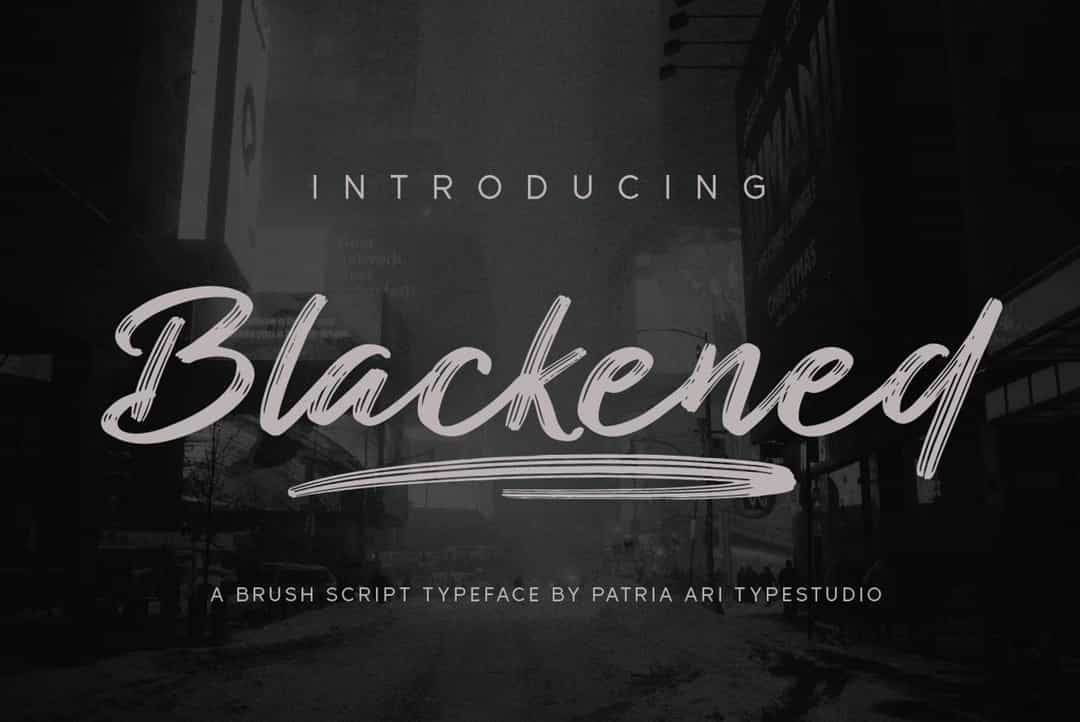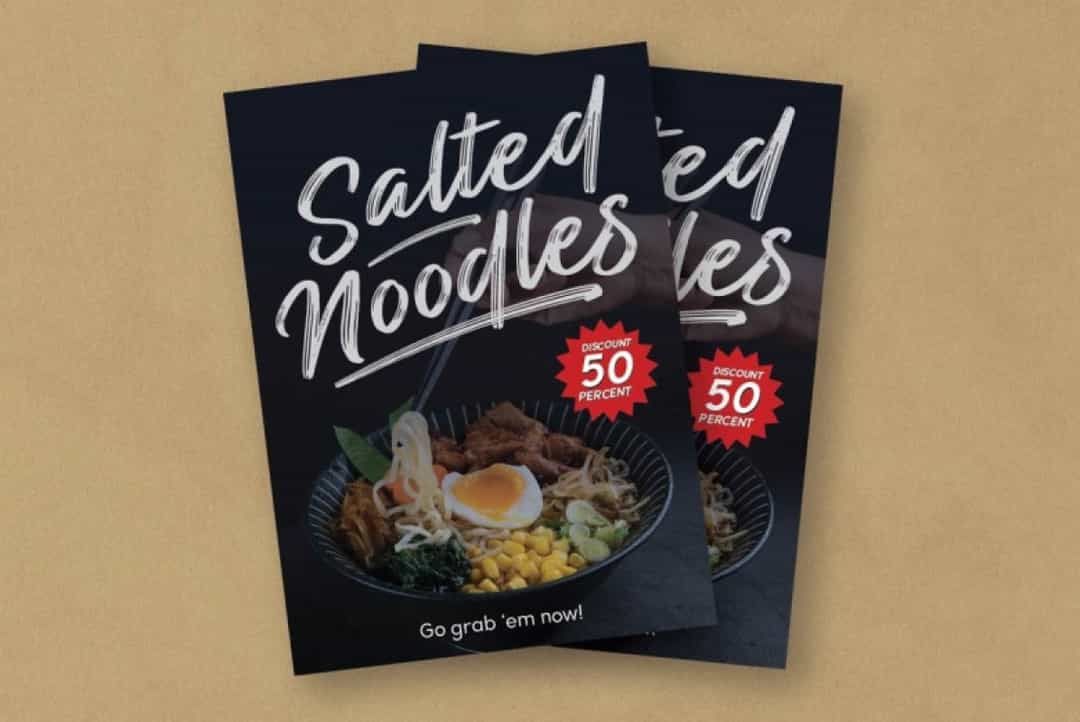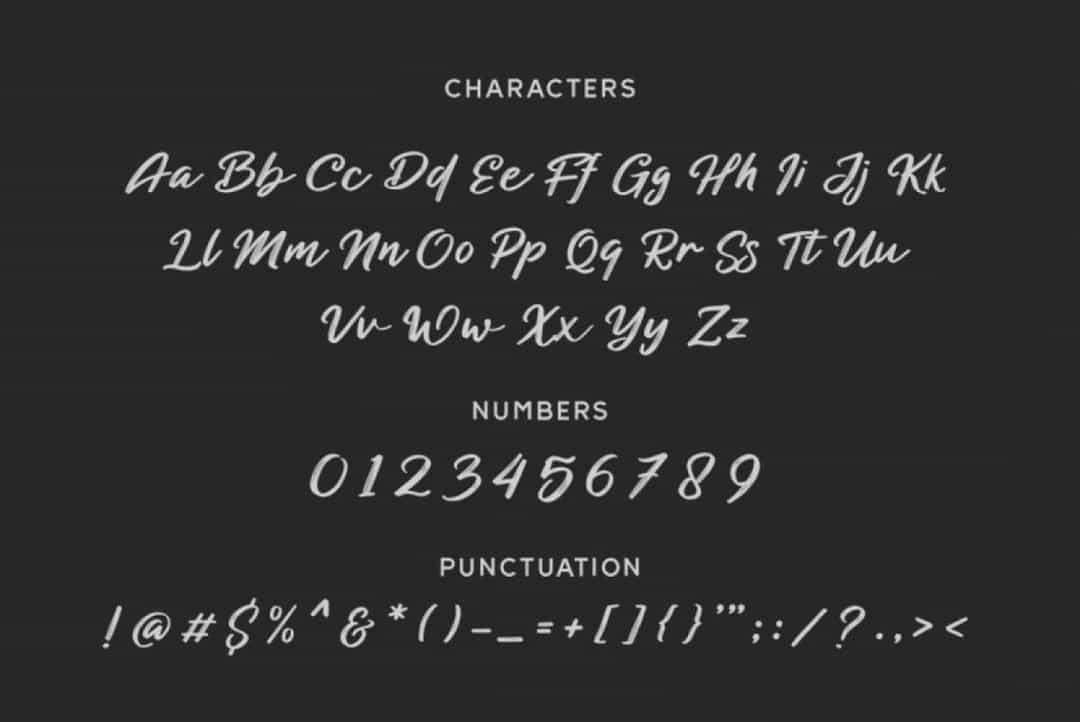
Blackened is a brush script typeface with multilingual accents and swashes, suitable for logos, branding projects, wedding designs, social media posts, advertisements, packaging for products labels designs photographs watermark invitations stationery or any project which requires professional handwriting ability.